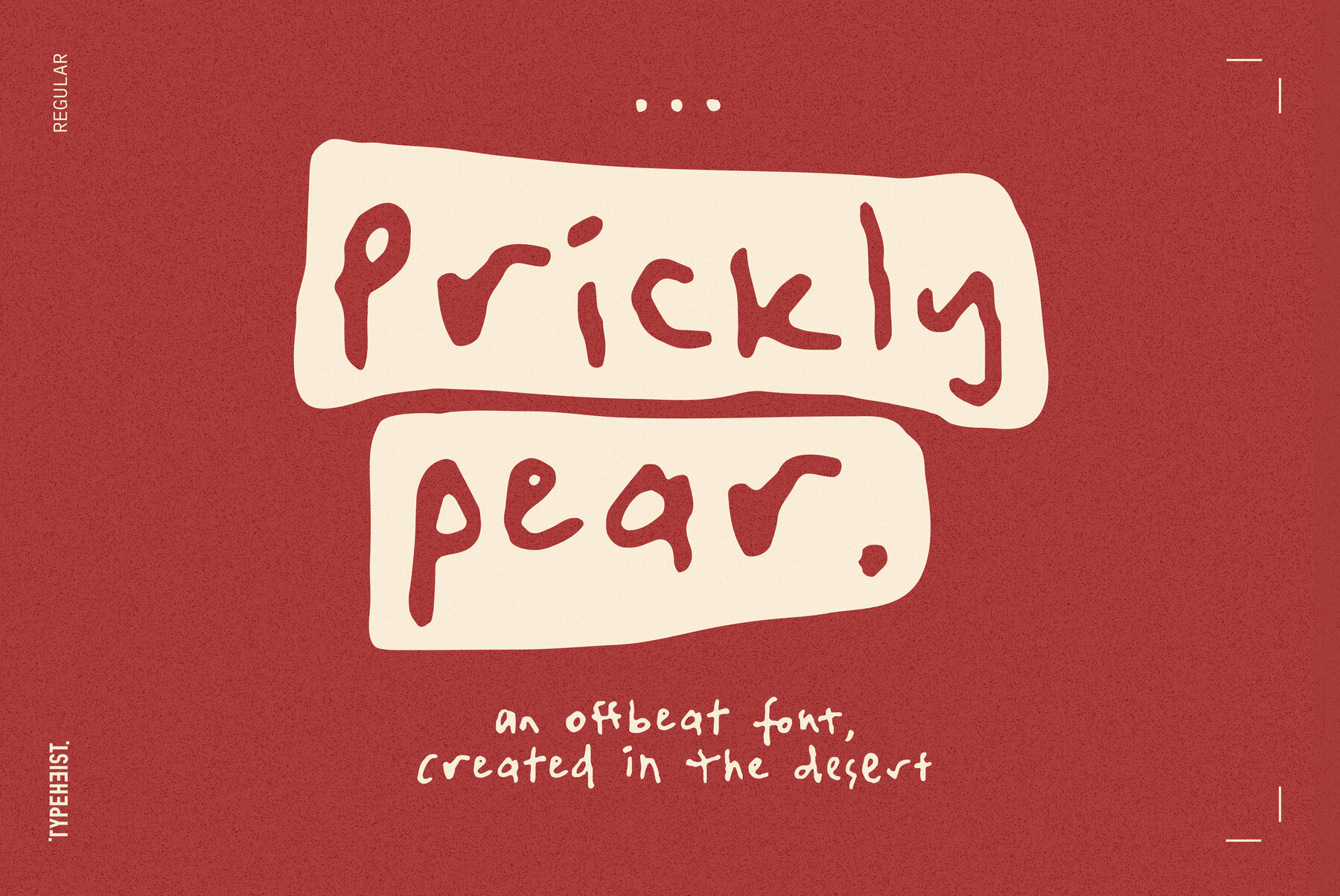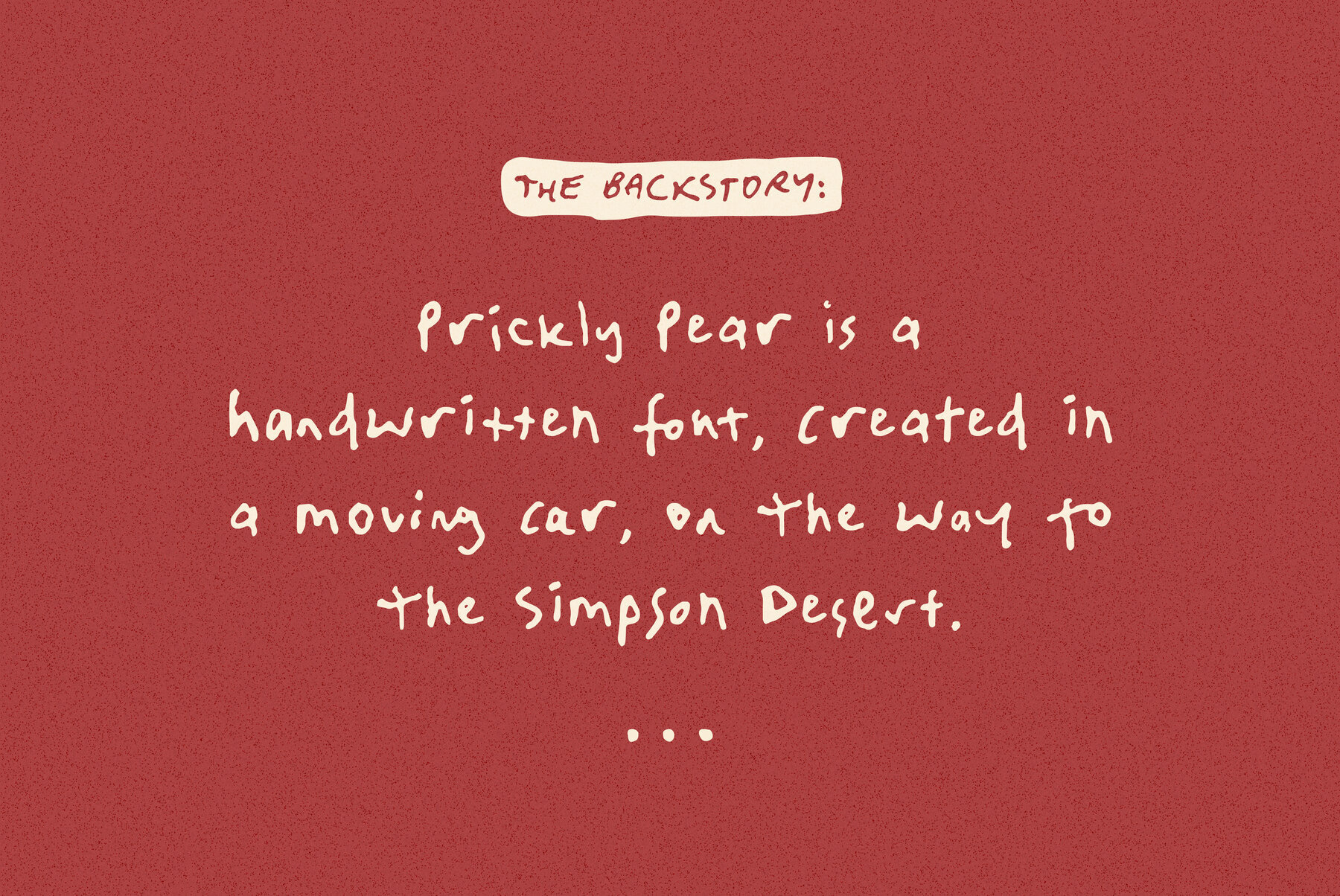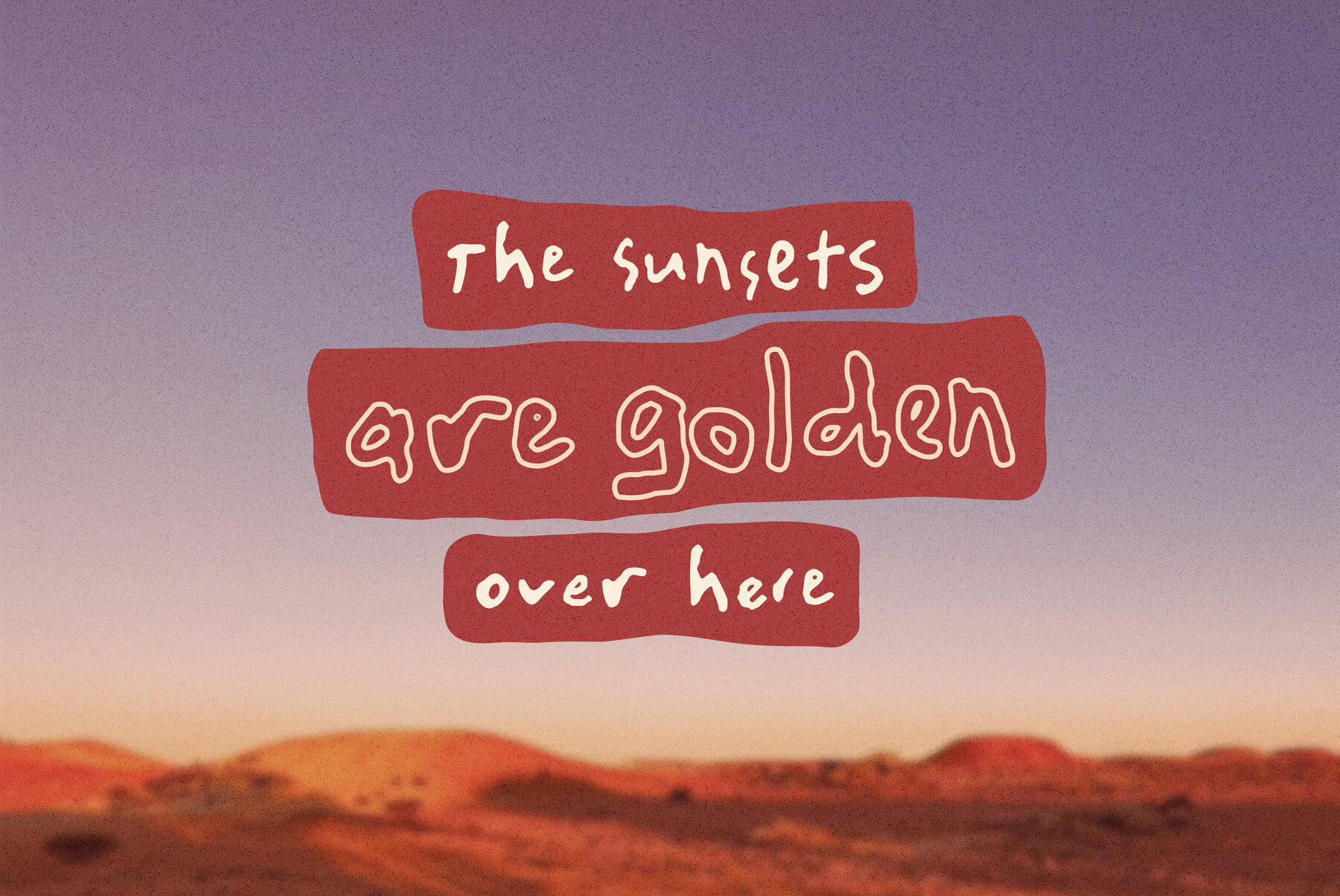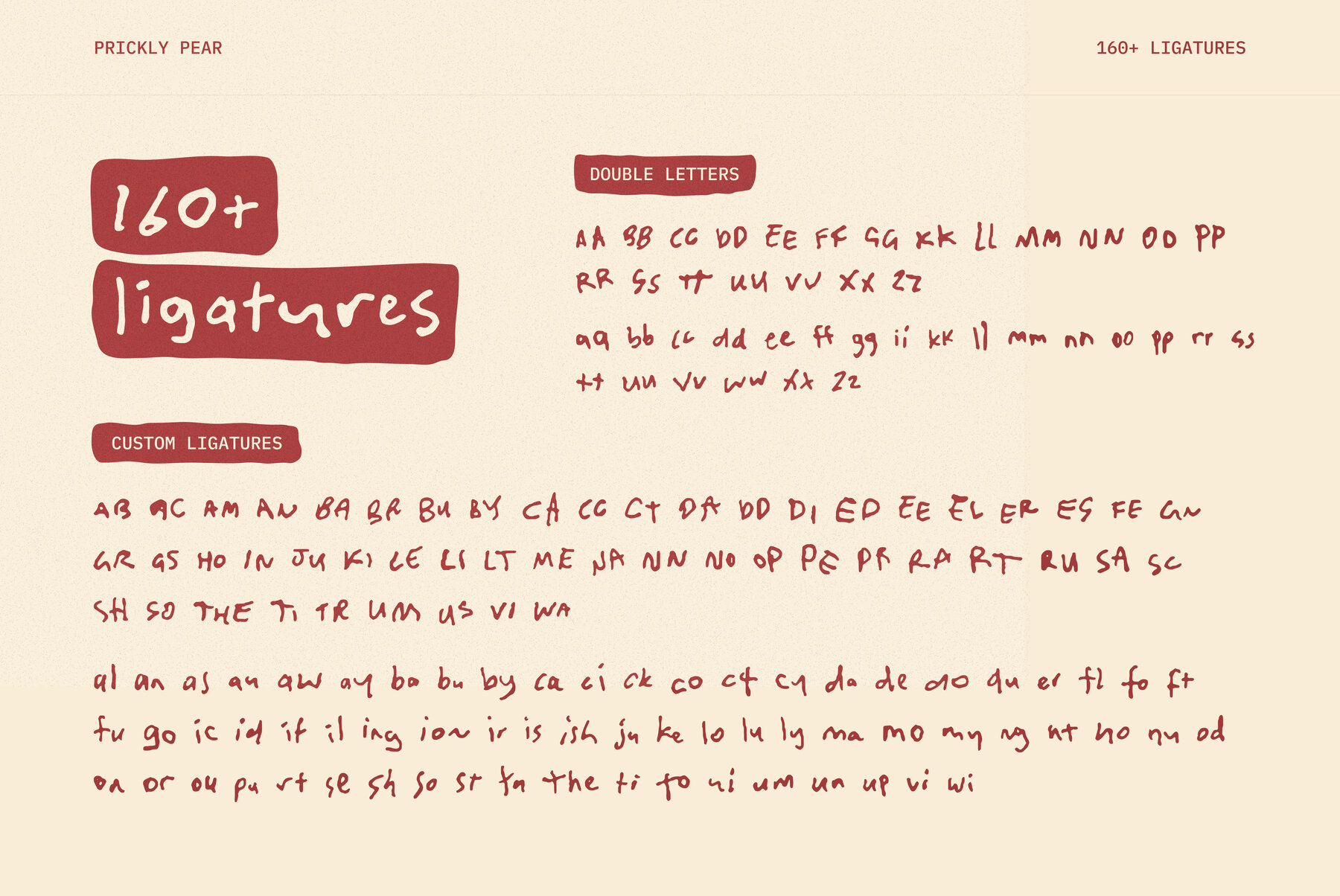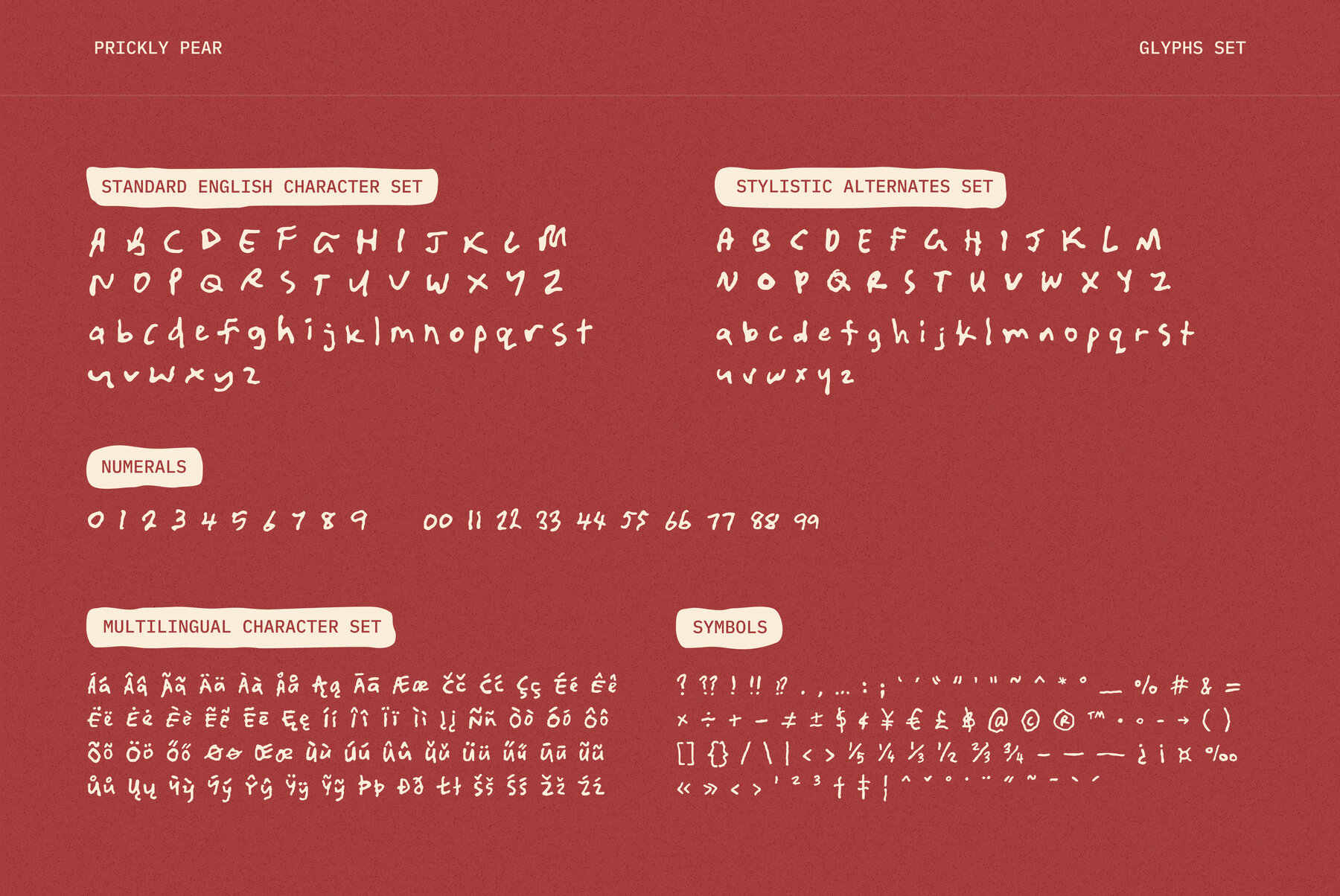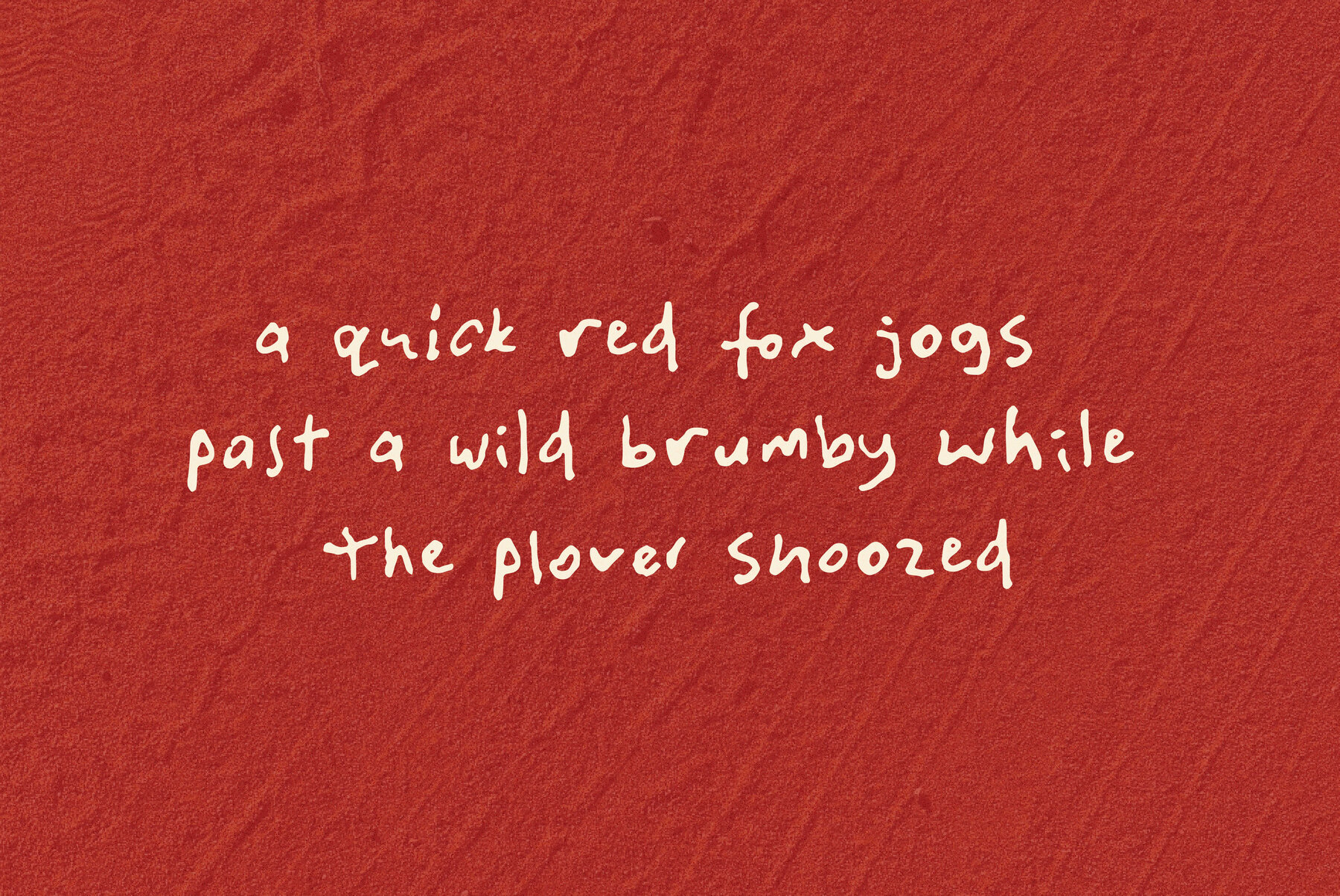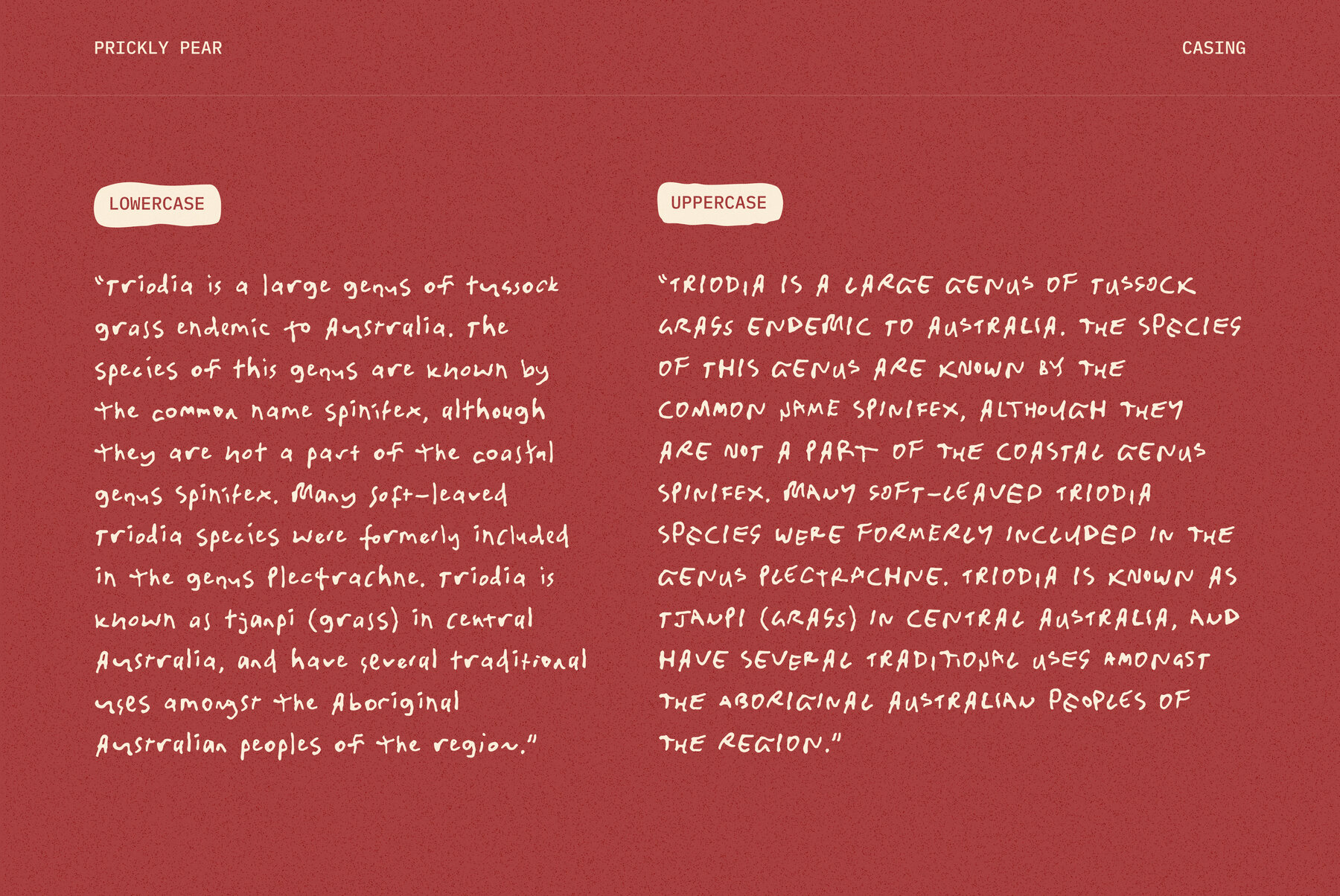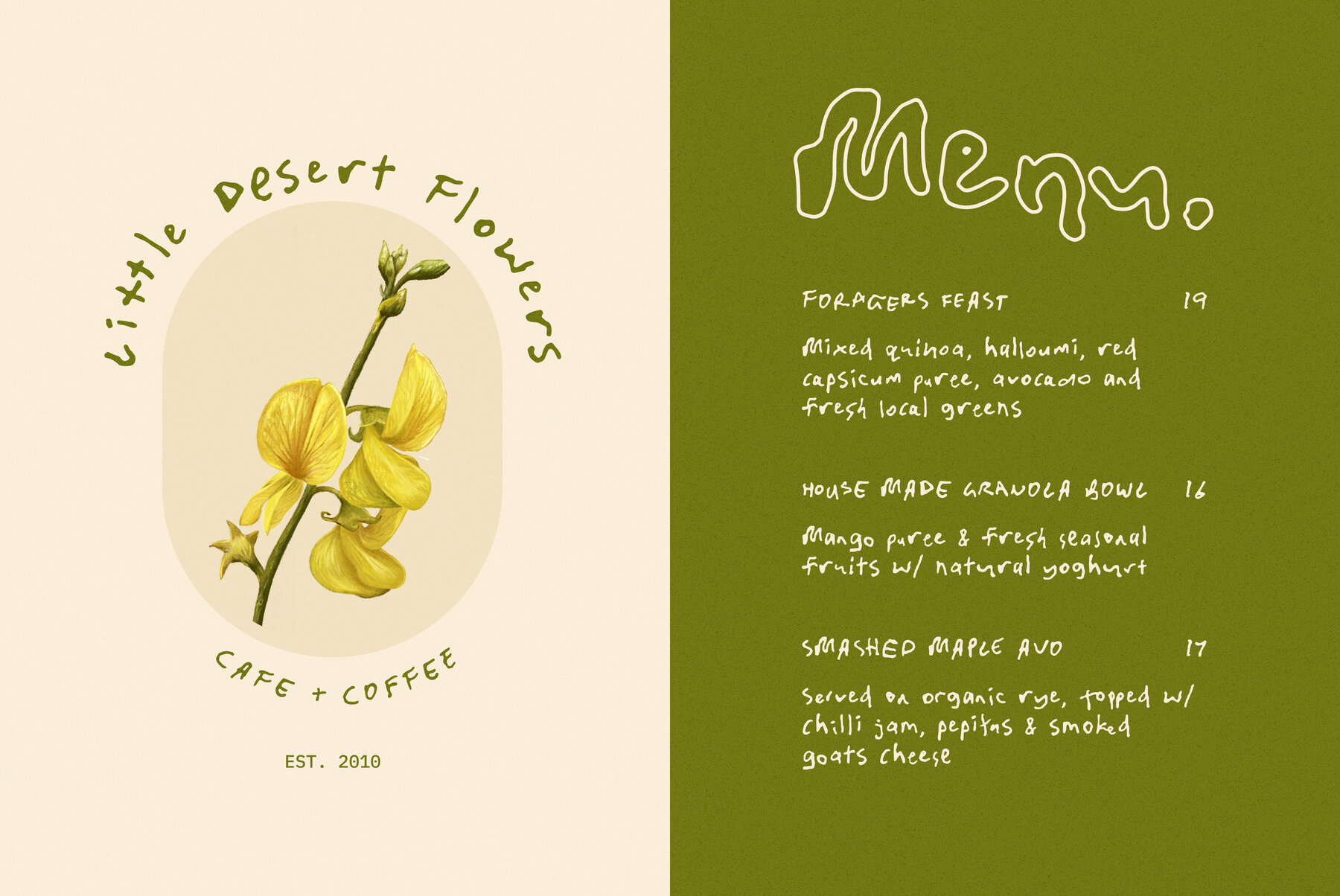
Prickly Pear Font
Prickly Pear Regular
Here's a font with a special backstory. Prickly Pear is a handwritten font, created in a moving car, on the way to the Simpson Desert. At the mercy of every bump, hump and hole in the road, this font is as rough and realistic as its conception. A unique and messy handwriting font reminiscent of the rugged landscape; it'll be perfect for that design project where you need a little raw authenticity. Prickly Pear has a comprehensive character set of over 160 custom ligature combinations and 56 multi-lingual characters.